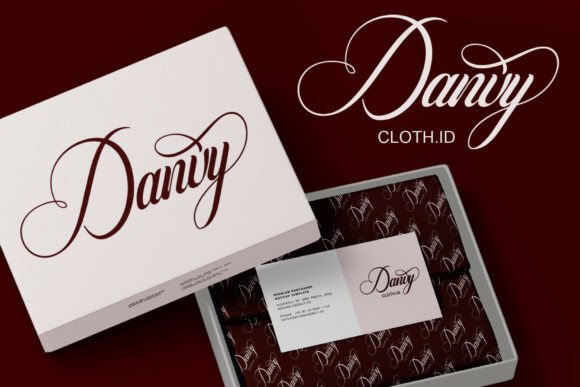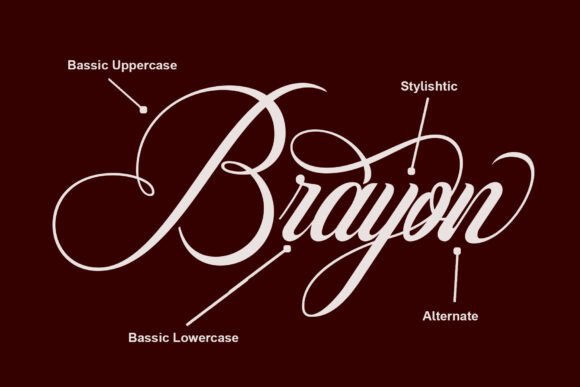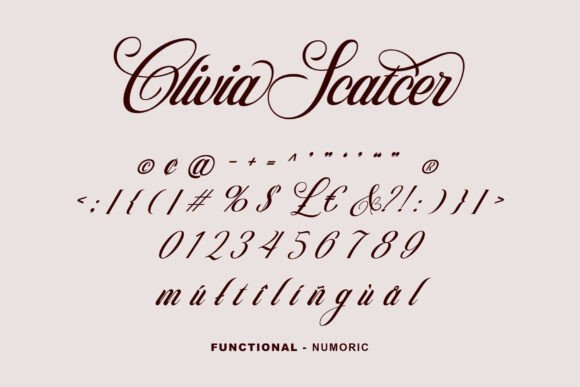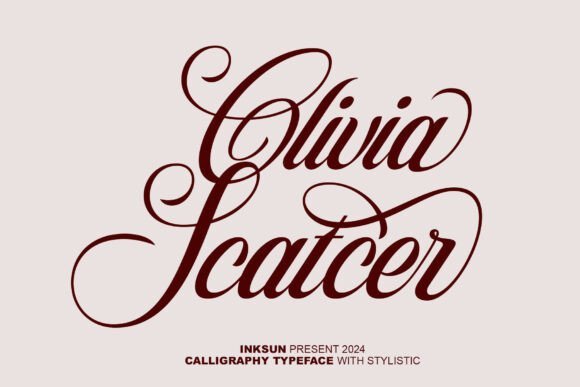
Introduction to Olivia Scatcer Font Font
Step into a world of timeless romance with Olivia Scatcer, an exquisite calligraphy typeface meticulously designed to infuse your projects with luxury and grace.
Its elegant contrast between thick and thin strokes makes it the premier choice for luxury branding, upscale wedding invitations, refined editorial headers, and high-end packaging Whether you are designing for a boutique shop or a formal event, this font provides an artisanal quality that is both sophisticated and deeply personal.
Key Features of Olivia Scatcer Font Font